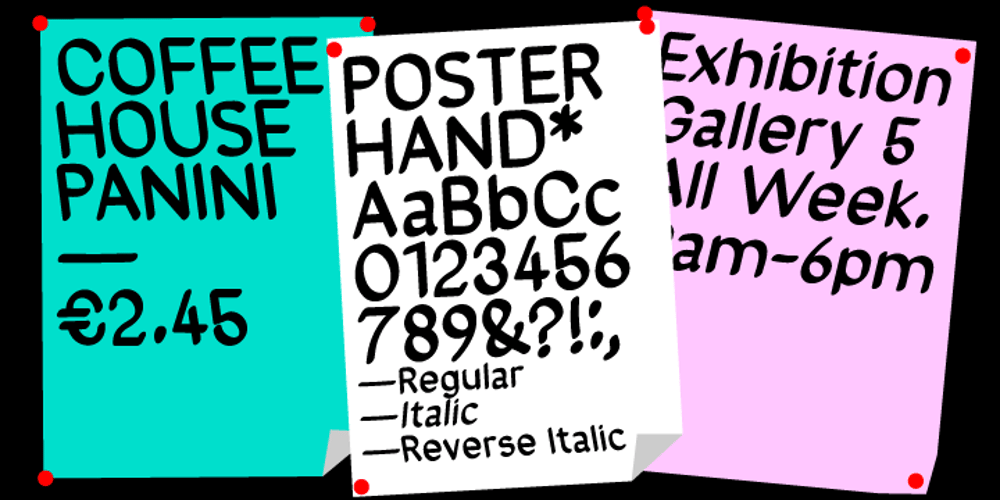
Poster Hand Font Family was designed by published by HouseOfBurvo. Poster Hand contains 3 styles and family package options. Poster Hand is an informal, casual script that echoes the hand lettering of those ubiquitous signs found all around us. From market stalls to menu boards, we are surrounded by the work of the unknown sign writer. The font comes in three styles, Regular, Italic and Reverse Italic and contains OpenType ligatures and kerning. Latin Extended A supports all western and eastern european latin languages.